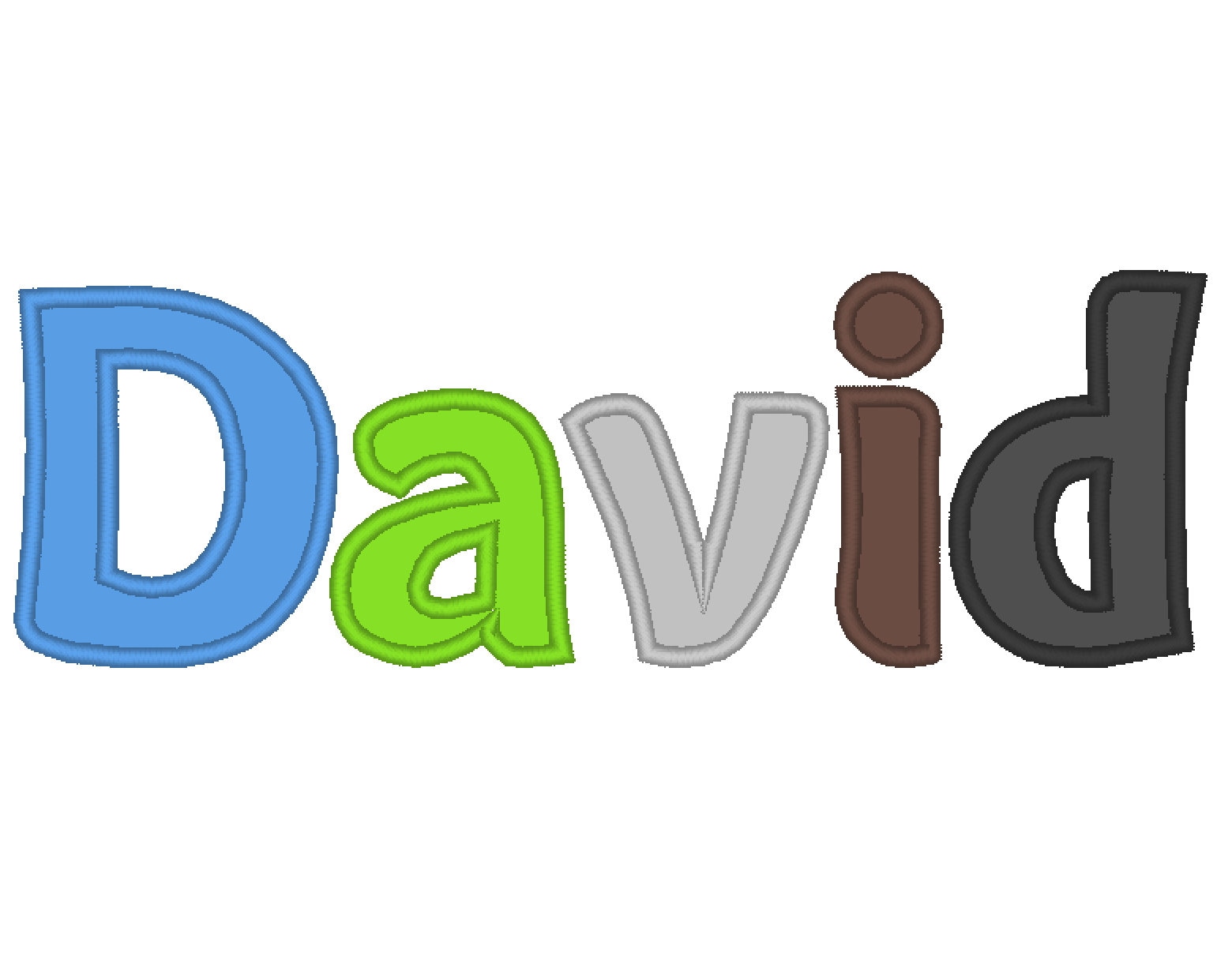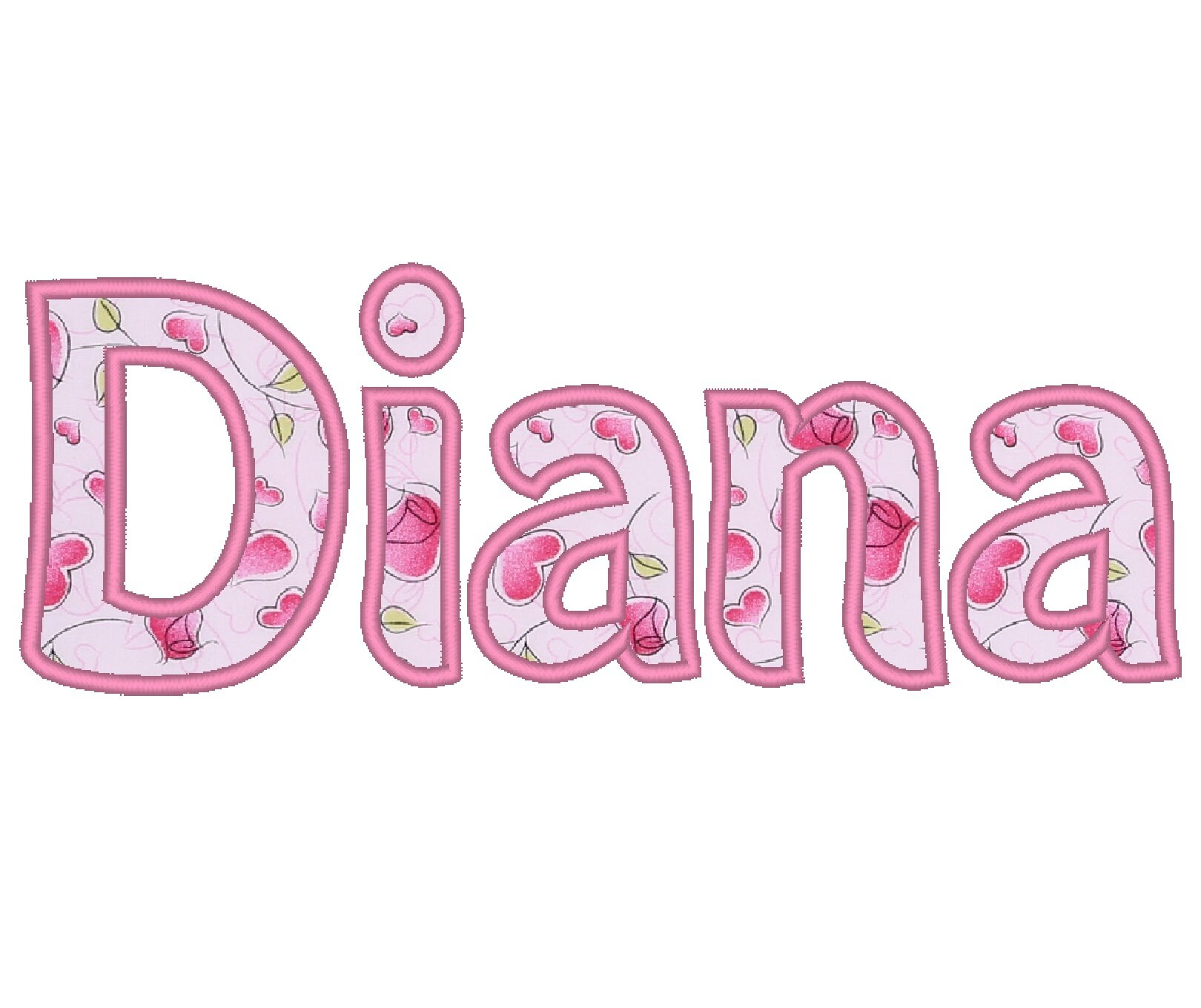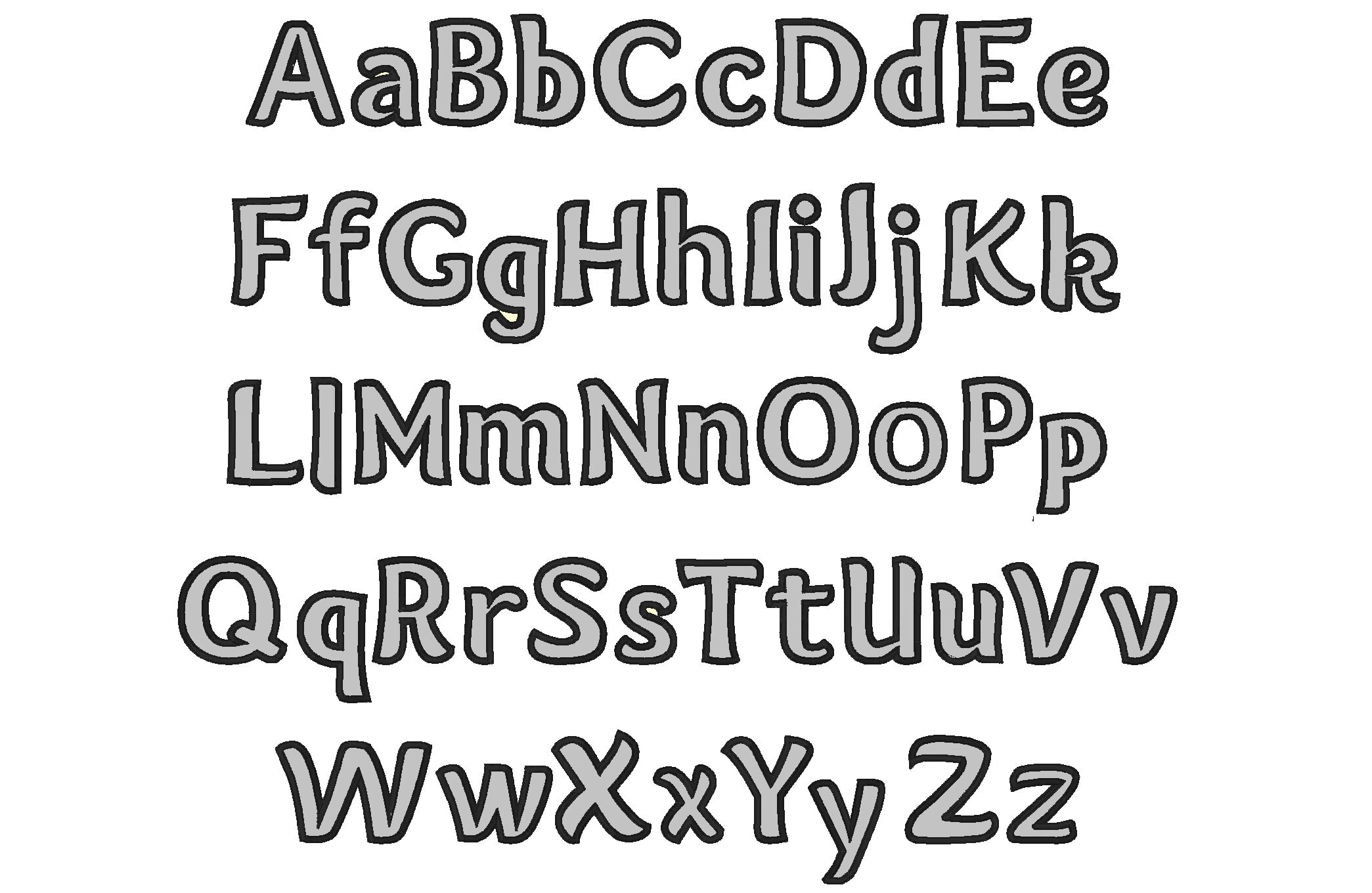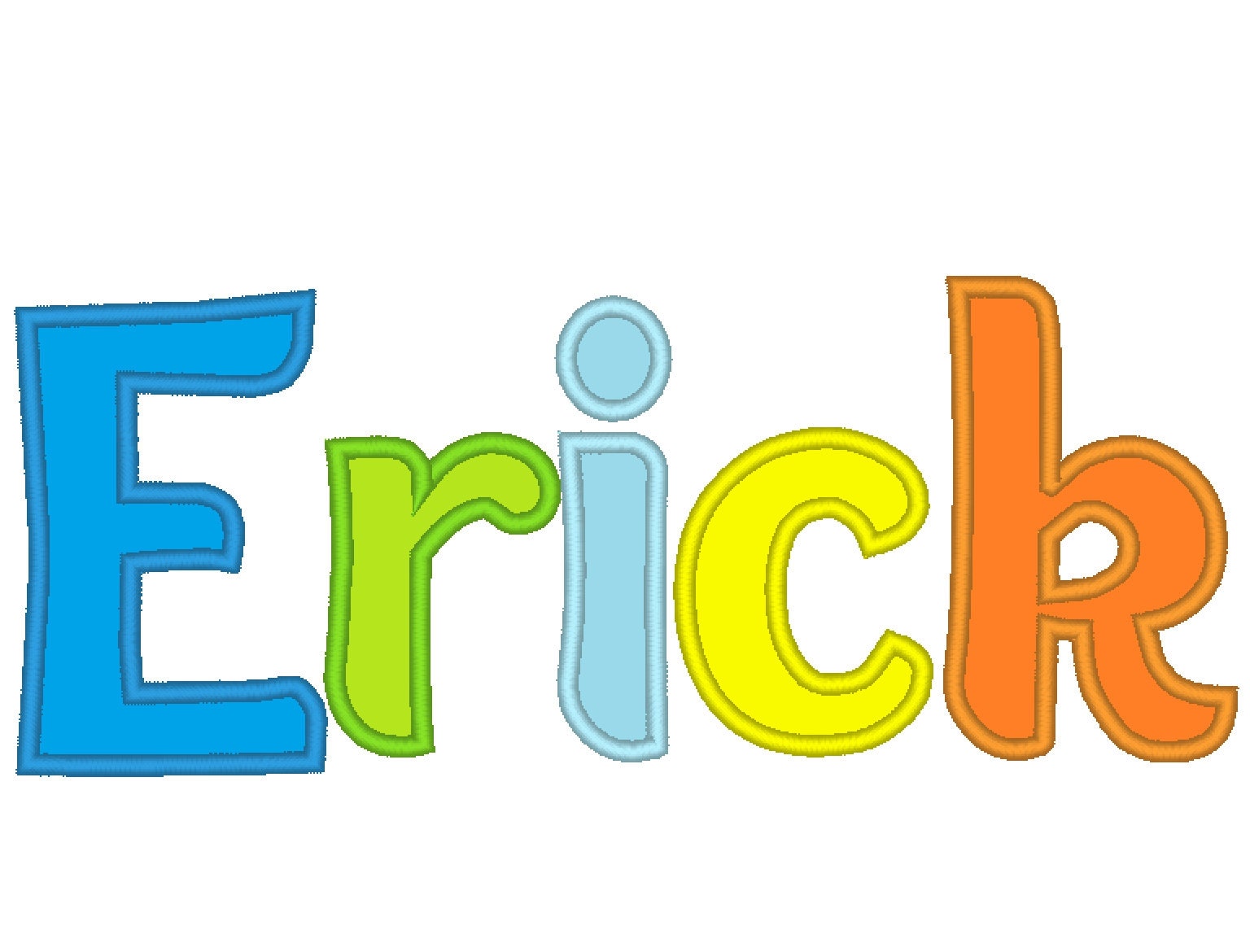
Applique monogram Font applique machine embroidery designs fun kids baby applique alphabet size 1.5, 2, 2.5, 3, 3.5 inches
Uppercase and lowercase letters, numbers and punctuation.